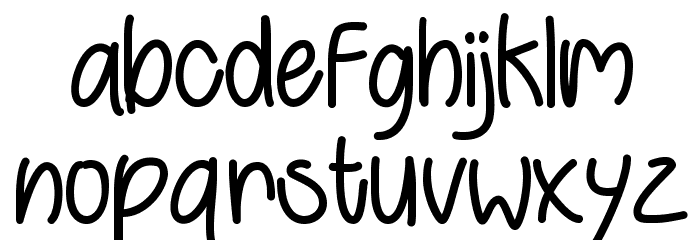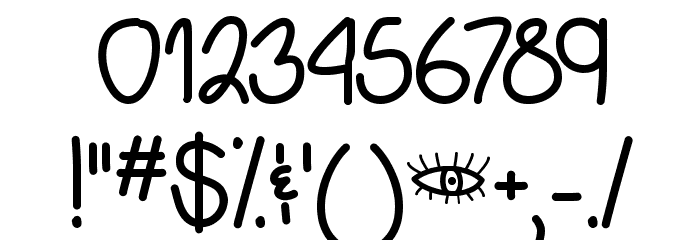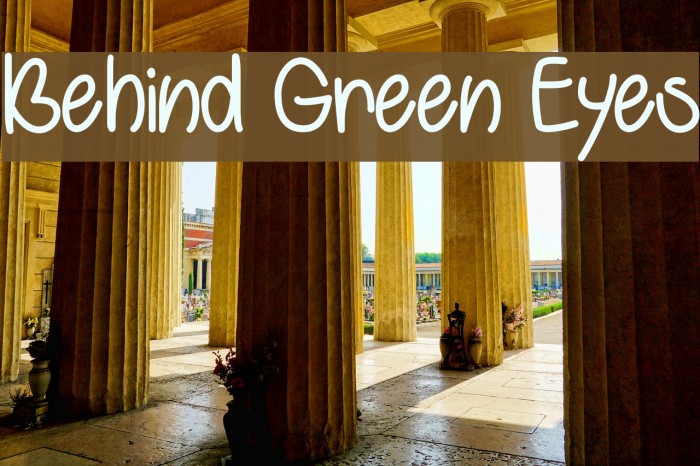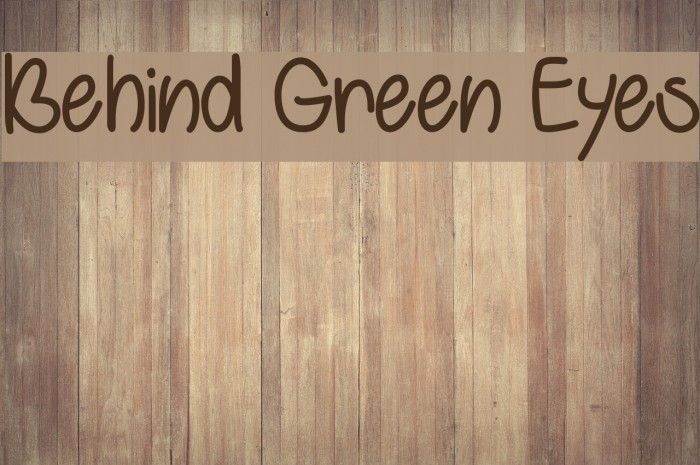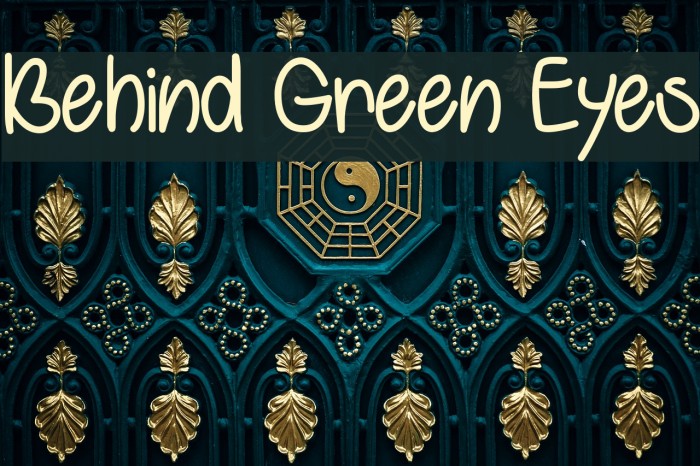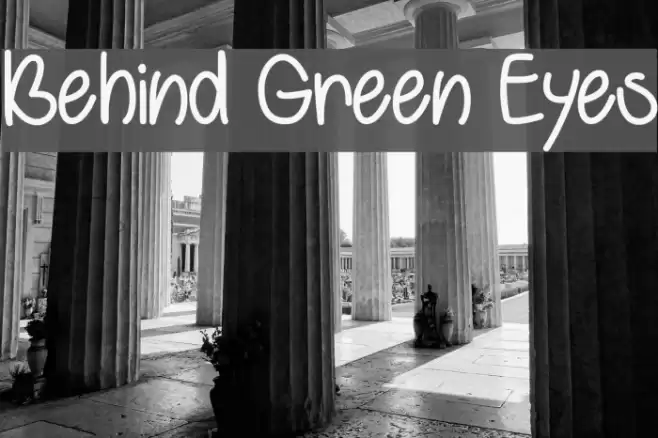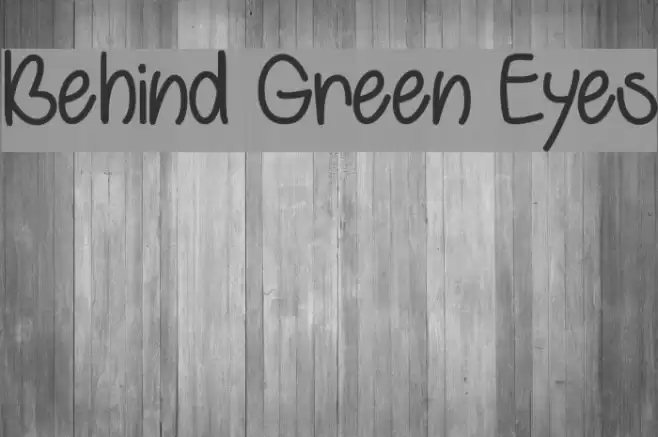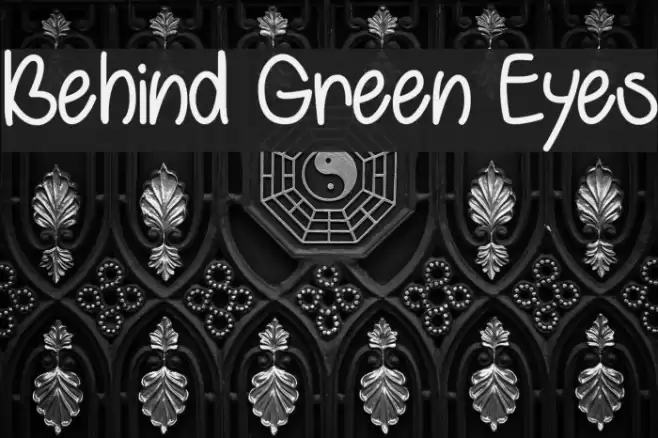
Behind Green Eyes Font
This playful and whimsical font features a handwritten style with a casual and friendly appearance. The letters are slightly rounded and have a consistent stroke width, giving them a uniform look. The uppercase and lowercase letters are well-balanced, with a slight slant that adds to the informal feel. The numbers and special characters maintain the same playful aesthetic, making the font versatile for various uses. Its legibility and charm make it suitable for creative projects that require a personal touch.
- Proposed Projects: Ideal for greeting cards, children's books, playful branding, and social media graphics.
- Category: Handwritten
- Overall Style: Playful
- Use Case: Headlines, Logos, Informal text